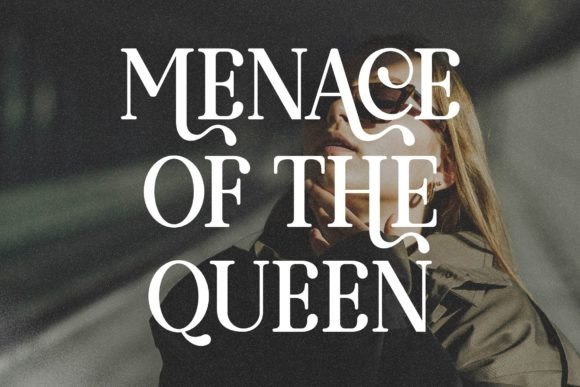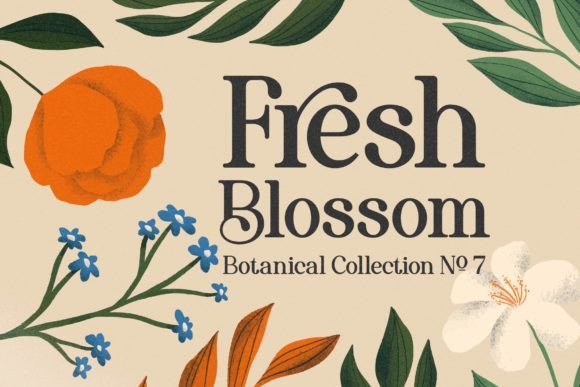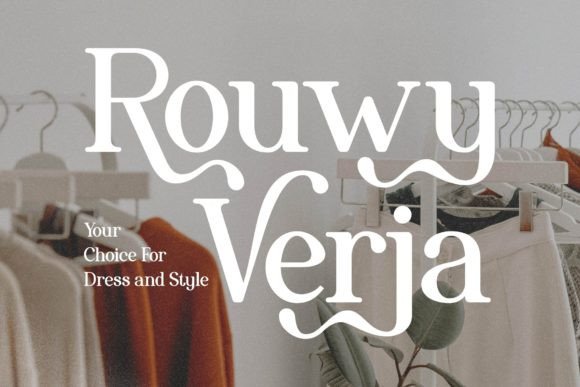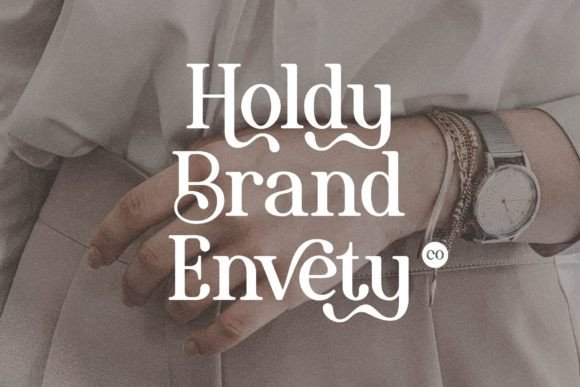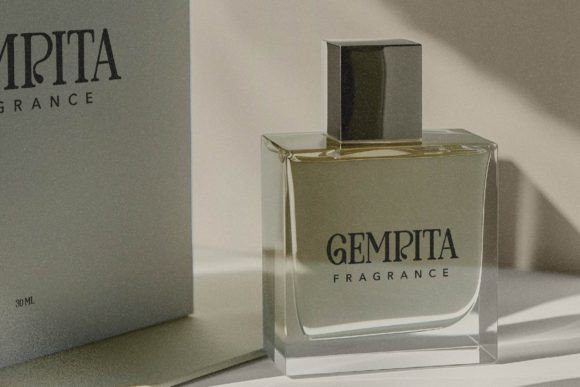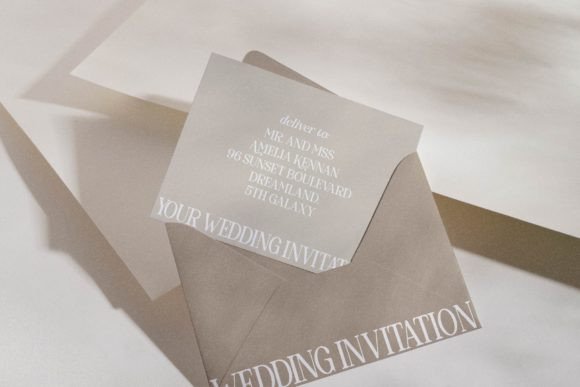
Introducing Davey Veretti Font: A Timeless Classic for Elegant Designs
Are you a designer or crafter looking for a font that exudes sophistication and elegance? Look no further than the Davey Veretti font. This classic serif display font is perfect for creating stunning headlines, logos, and titles that demand attention. With its sharp edges and traditional letterforms, Davey Veretti is sure to add a touch of timeless charm to any design.
The Characteristics of Davey Veretti Font
So, what makes Davey Veretti font so special? For starters, its serif design gives it a classic and sophisticated look that’s perfect for designs that require a touch of elegance. The font features elegant, sharp edges that add a level of refinement to any text. The traditional letterforms used in Davey Veretti font are also noteworthy, as they evoke a sense of nostalgia and timelessness.
Uses of Davey Veretti Font
Davey Veretti font is incredibly versatile and can be used in a variety of design projects. Here are some of the most popular uses for this stunning font:
- Headlines: Davey Veretti font is perfect for creating eye-catching headlines that demand attention. Its bold and elegant design makes it perfect for newspaper headlines, magazine titles, and website headings.
- Logos: The font’s classic design makes it an excellent choice for logos that require a touch of sophistication. Whether you’re designing a logo for a luxury brand or a high-end product, Davey Veretti font is sure to impress.
- Titles: Davey Veretti font is also great for creating titles for books, movies, and other creative projects. Its elegant design adds a level of refinement to any title, making it perfect for designs that require a touch of class.
Benefits of Using Davey Veretti Font
So, why should you choose Davey Veretti font for your next design project? Here are just a few benefits of using this stunning font:
- Timeless Design: Davey Veretti font has a timeless design that will never go out of style. Its classic serif design and elegant letterforms ensure that your design will look great for years to come.
- Elegant and Sophisticated: The font’s elegant and sophisticated design makes it perfect for designs that require a touch of refinement. Whether you’re designing a luxury brand or a high-end product, Davey Veretti font is sure to impress.
- Versatile: Davey Veretti font is incredibly versatile and can be used in a variety of design projects. Whether you’re designing a headline, logo, or title, this font is sure to deliver.
Tips for Using Davey Veretti Font
Here are a few tips for using Davey Veretti font in your next design project:
- Use it sparingly: Davey Veretti font is a bold and elegant font that’s best used sparingly. Use it for headlines, logos, and titles, but avoid using it for body text.
- Pair it with a sans-serif font: Pairing Davey Veretti font with a sans-serif font can create a beautiful contrast that’s perfect for designs that require a touch of elegance.
- Experiment with different sizes: Davey Veretti font looks great in a variety of sizes. Experiment with different sizes to find the one that works best for your design.
In conclusion, Davey Veretti font is a classic serif display font that’s perfect for designers and crafters looking for a touch of elegance and sophistication. Its timeless design, elegant letterforms, and sharp edges make it perfect for headlines, logos, and titles. With its versatility and classic design, Davey Veretti font is sure to be a staple in any designer’s font collection.